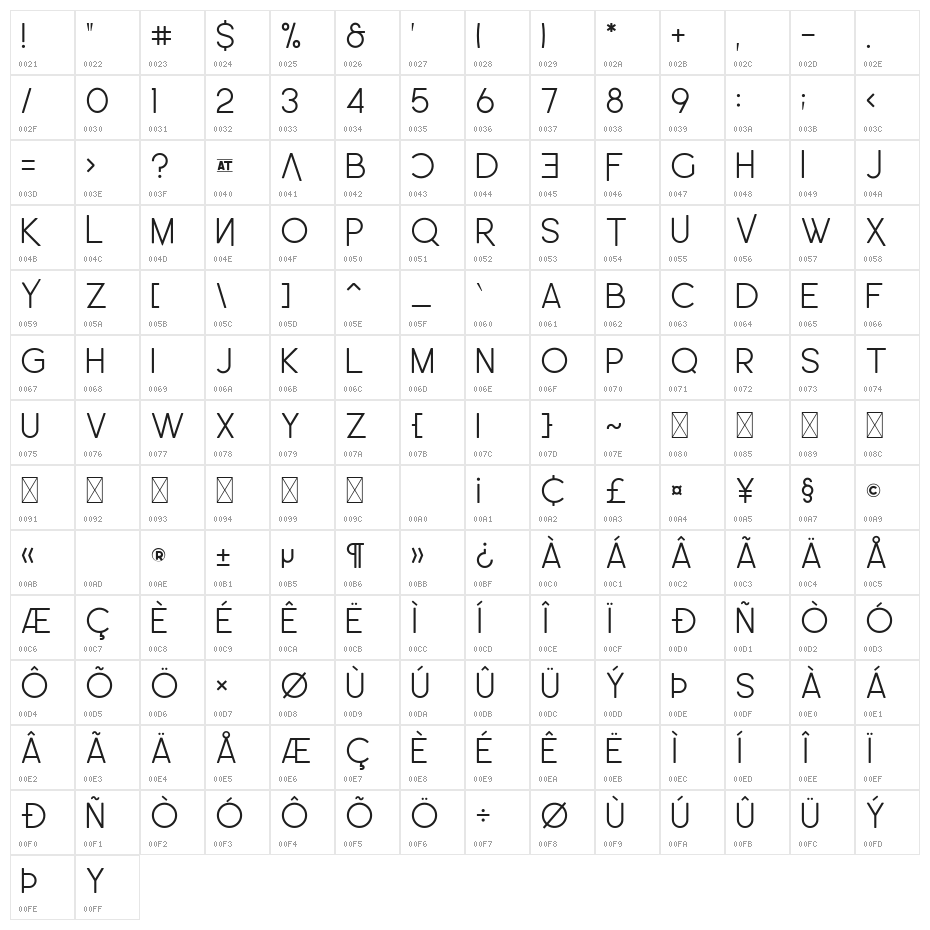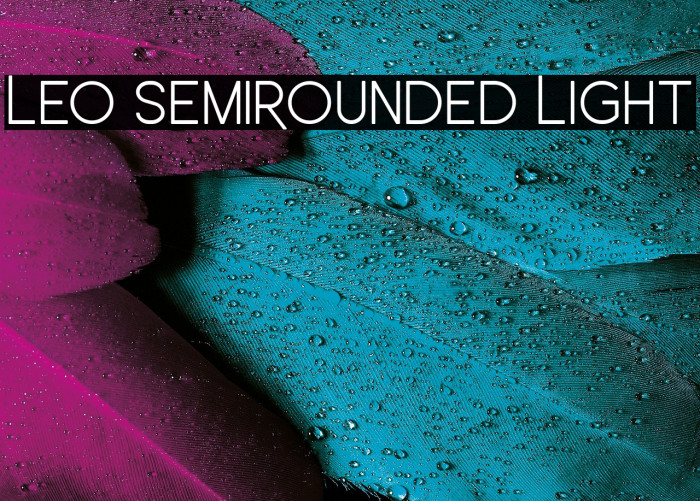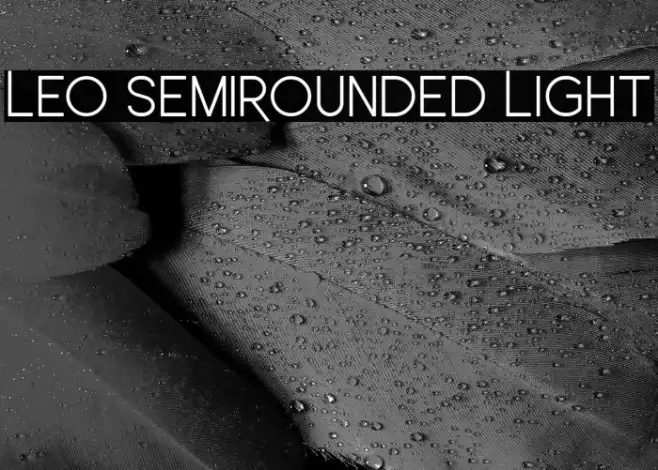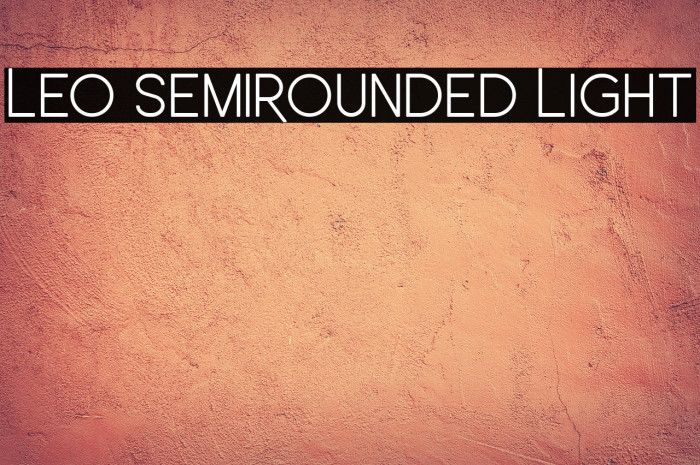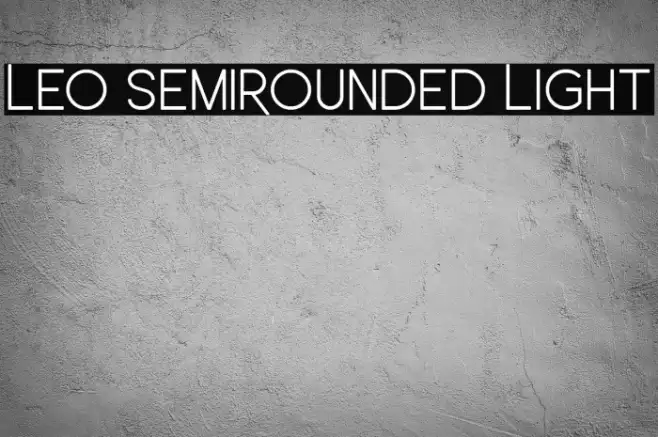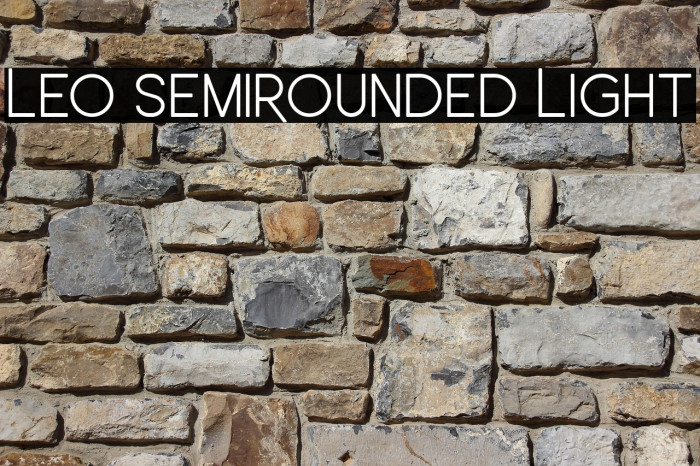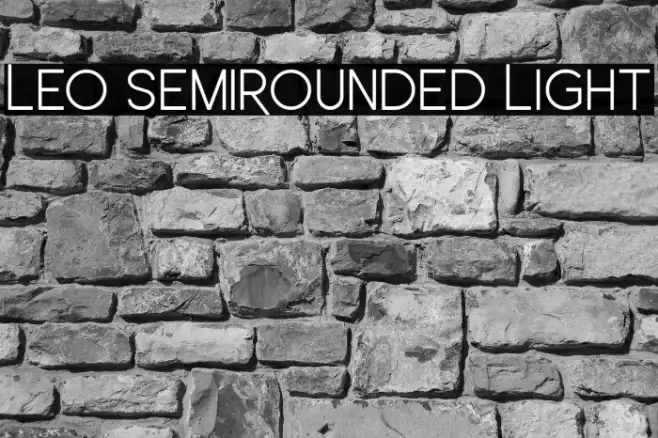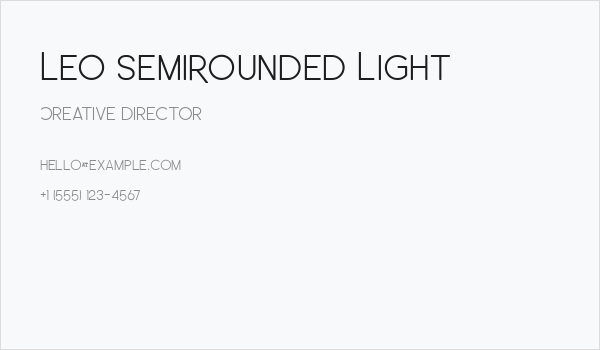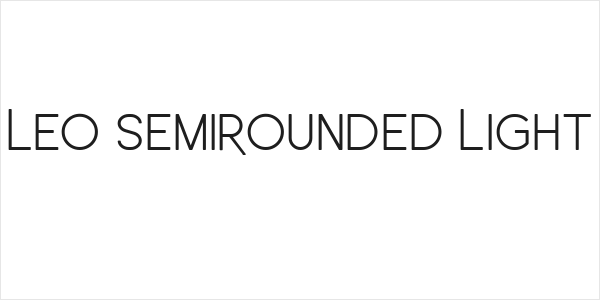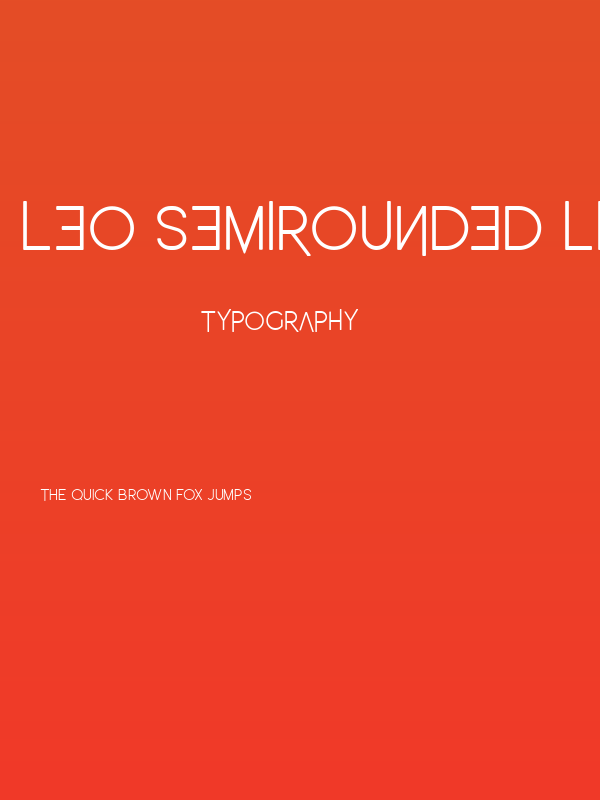
Leo SemiRounded Light Font
Leo SemiRounded Light Description
This font features a clean, geometric design with semi-rounded edges, giving it a modern and approachable appearance. The characters are evenly spaced and maintain a consistent weight throughout, contributing to its legibility. The uppercase letters exhibit a uniform height, while the lowercase letters are slightly shorter, maintaining a harmonious balance. The numerals are clear and distinct, making them easily readable. Special characters are designed with the same attention to detail, ensuring they blend seamlessly with the rest of the typeface. Overall, this font's simplicity and clarity make it versatile for various design applications.
| Proposed Projects | Ideal for branding, web design, advertising, and editorial projects where a clean and modern look is desired. |